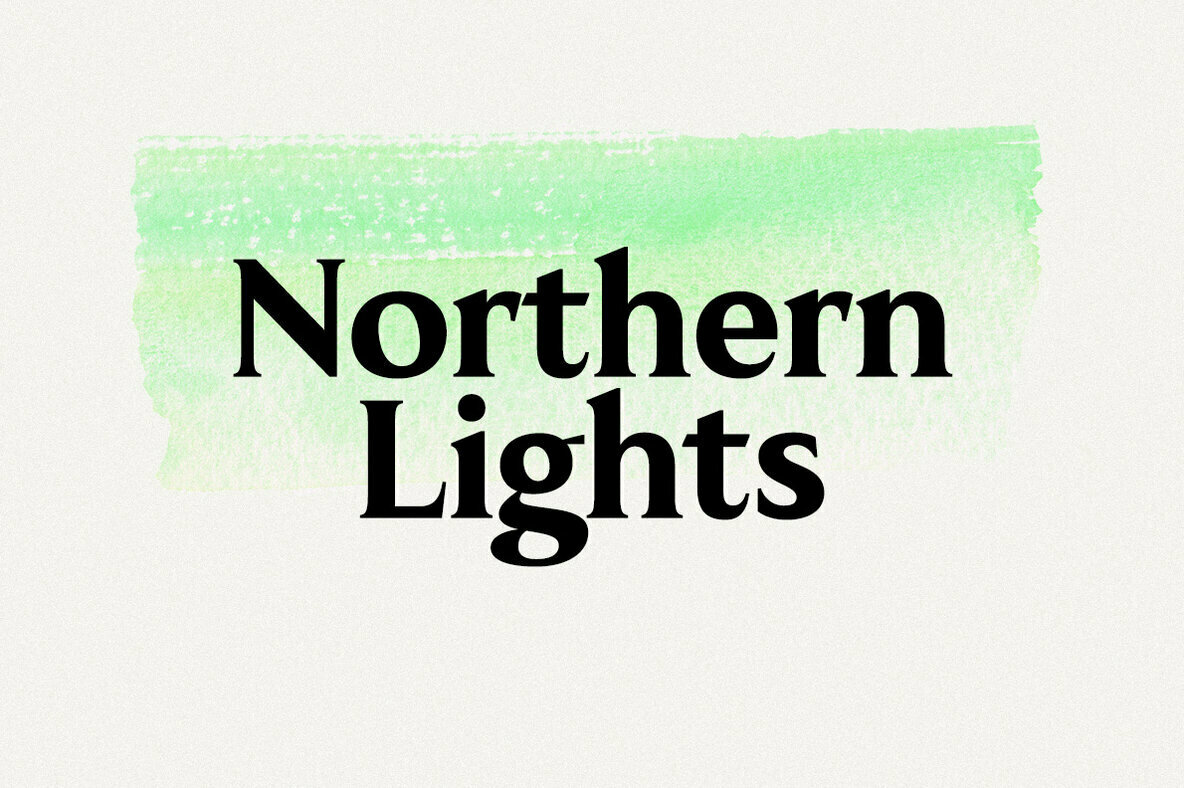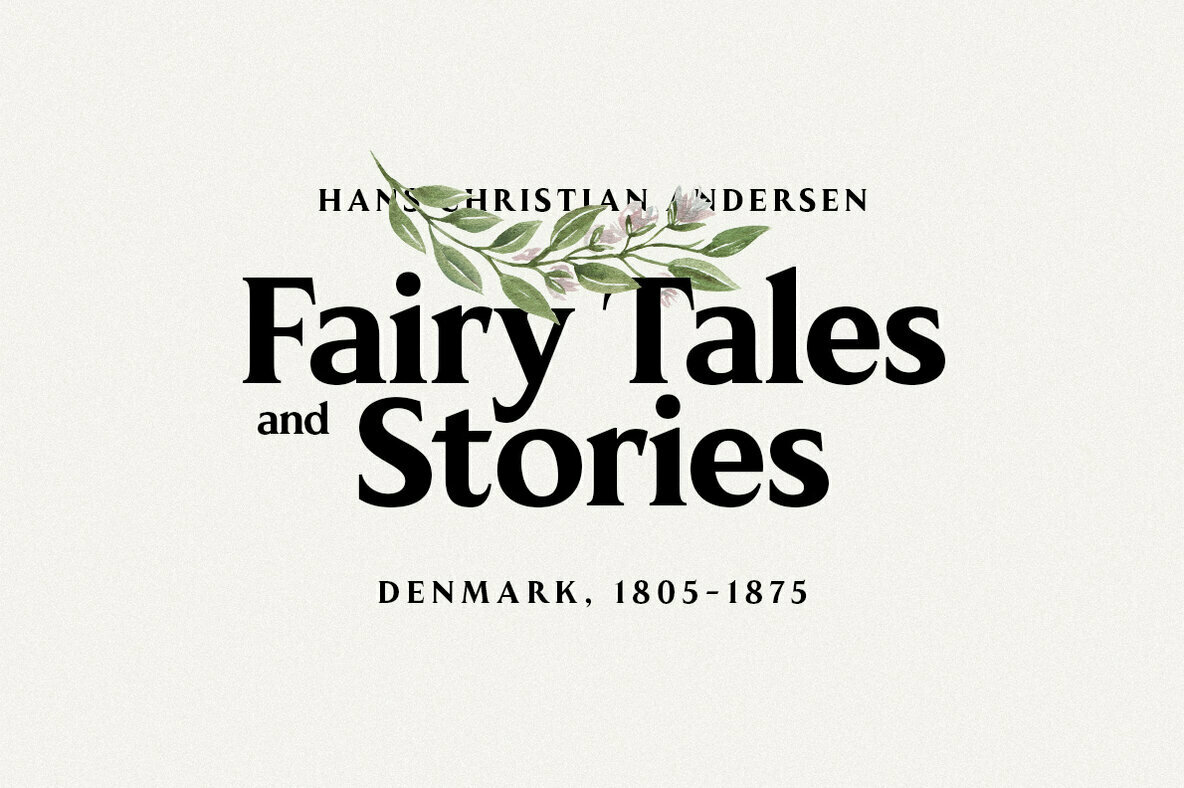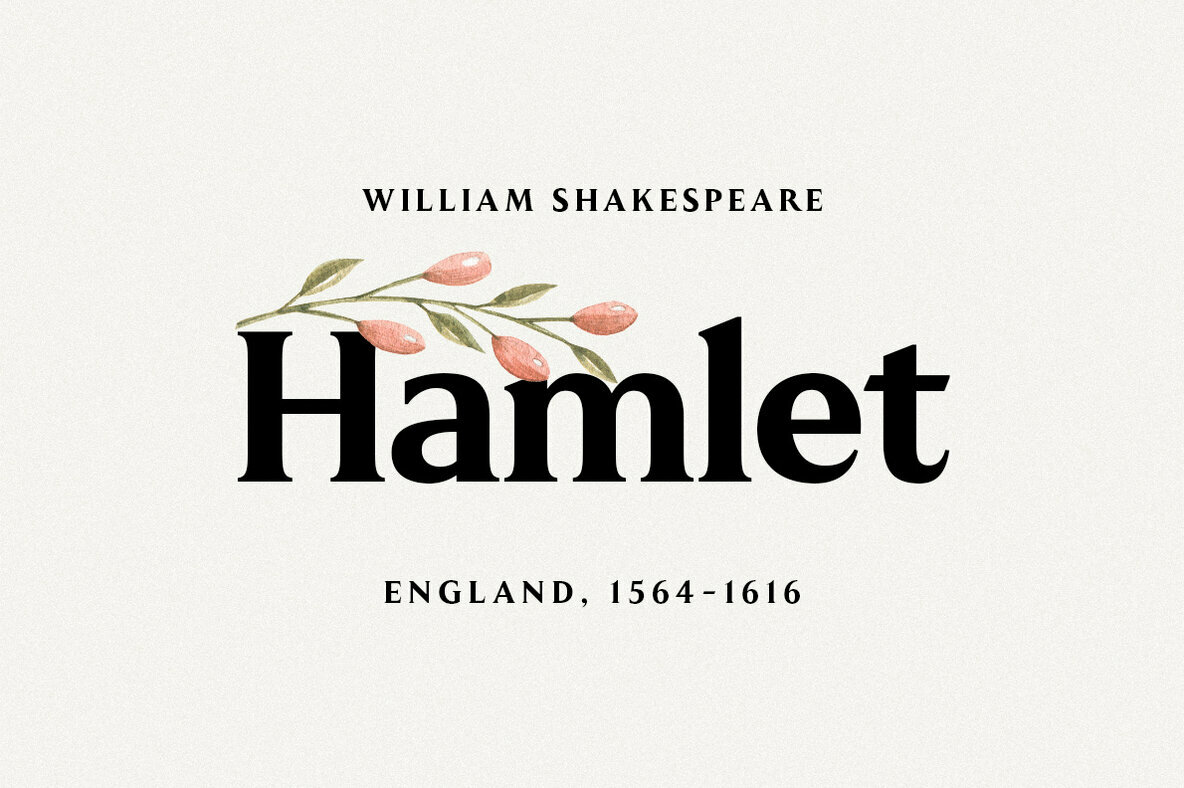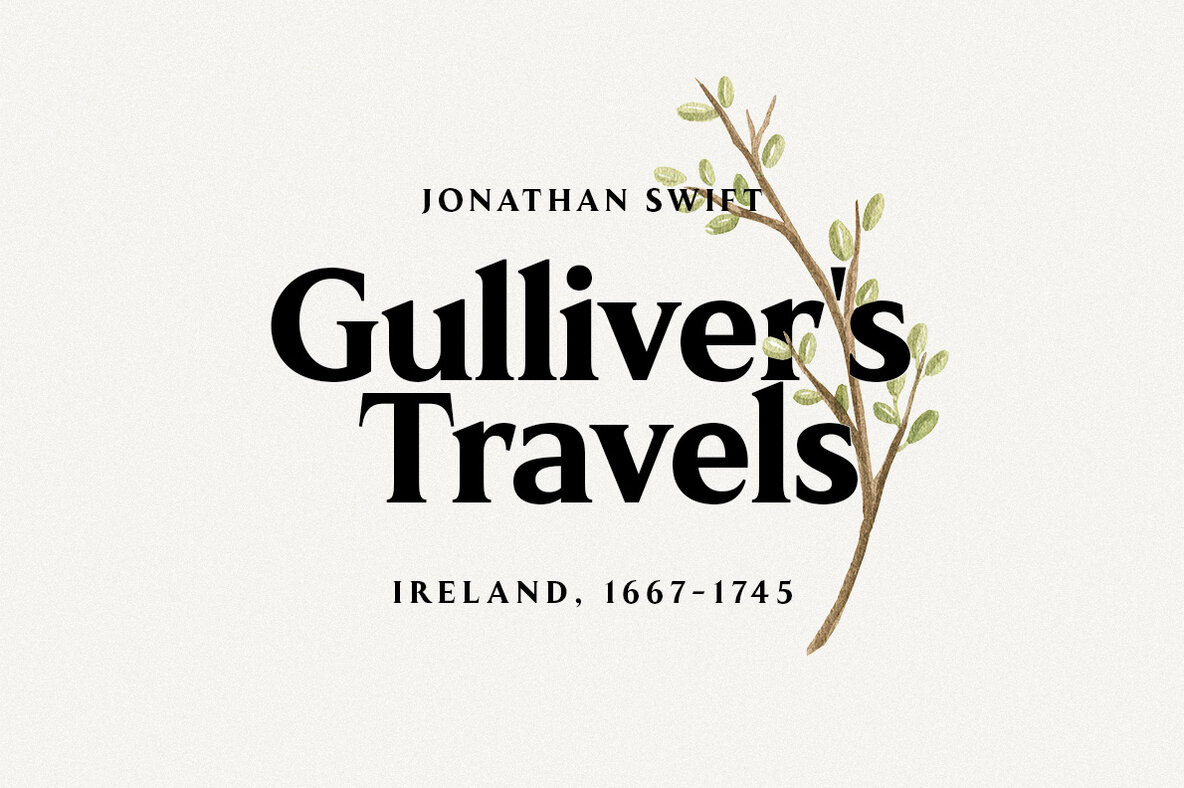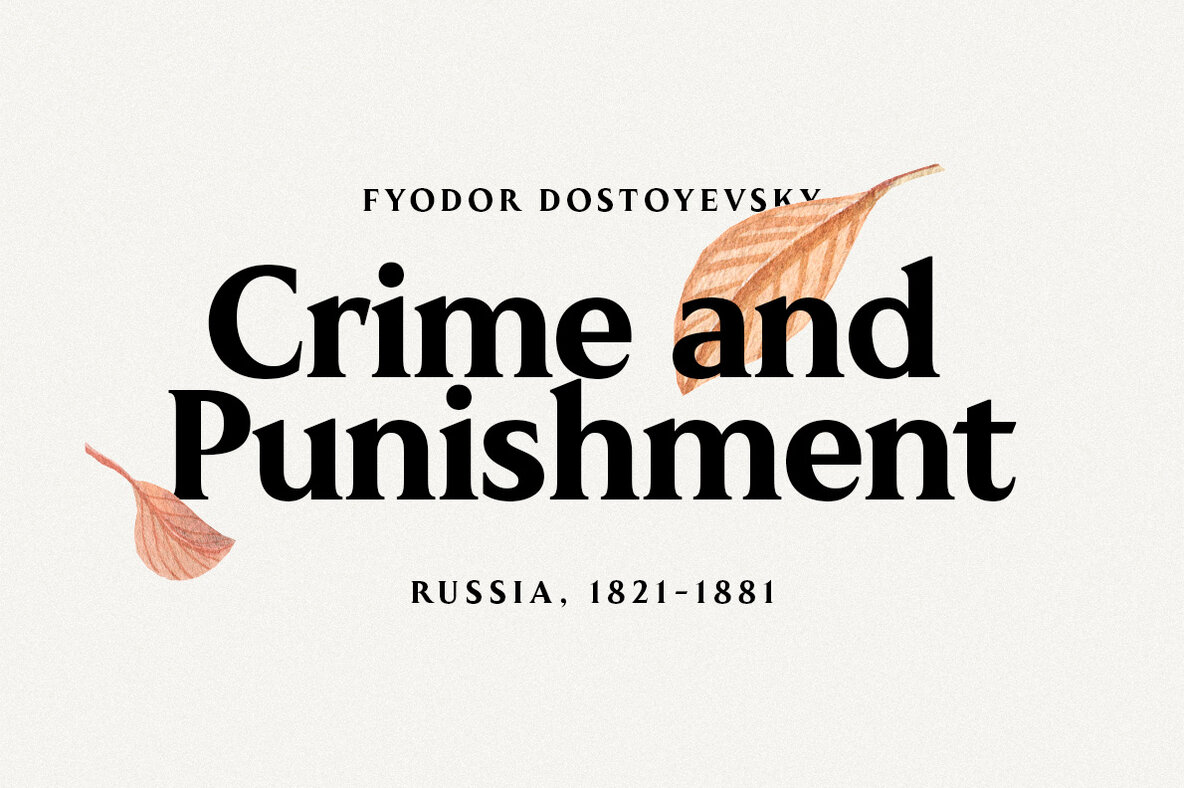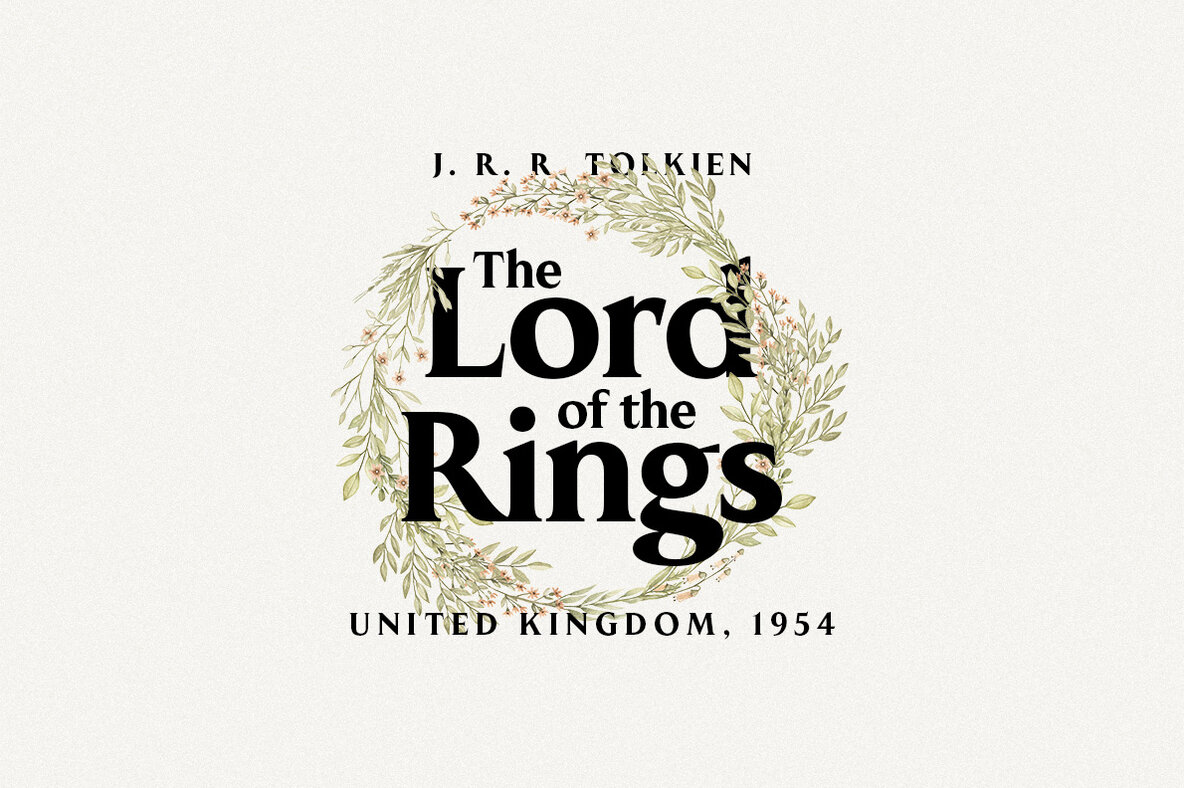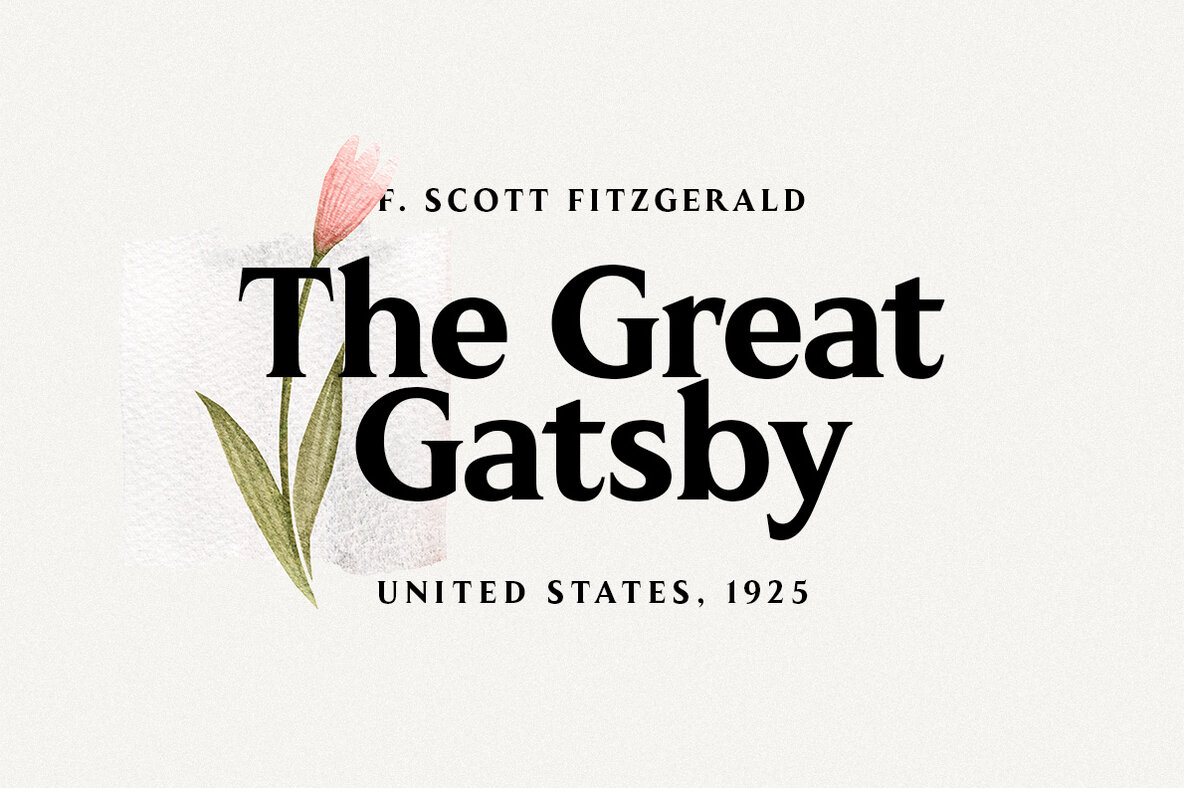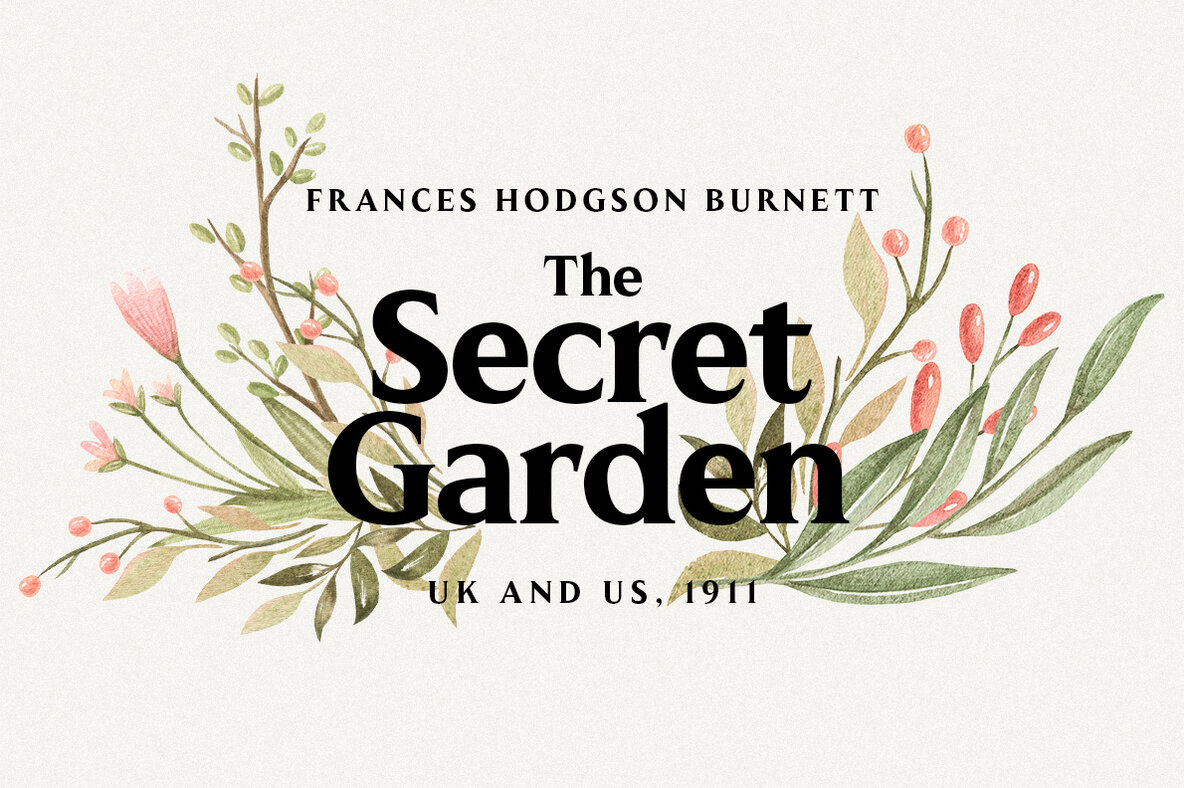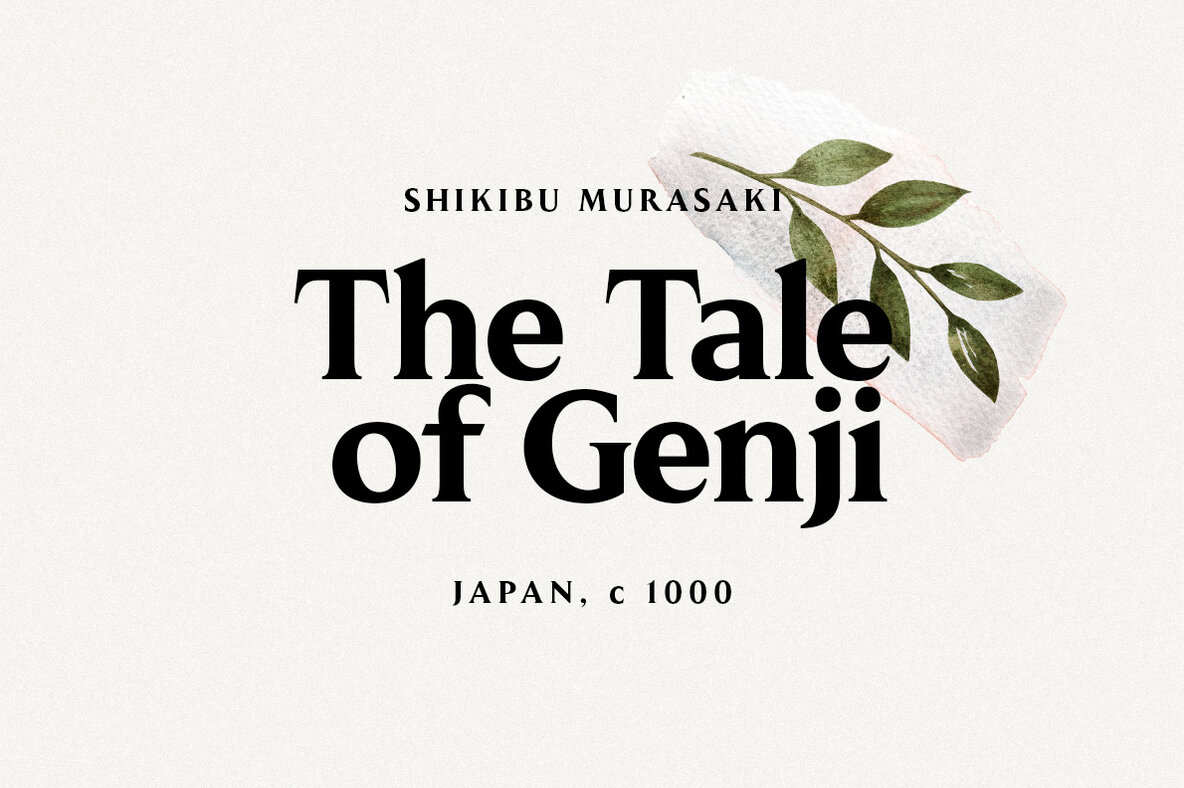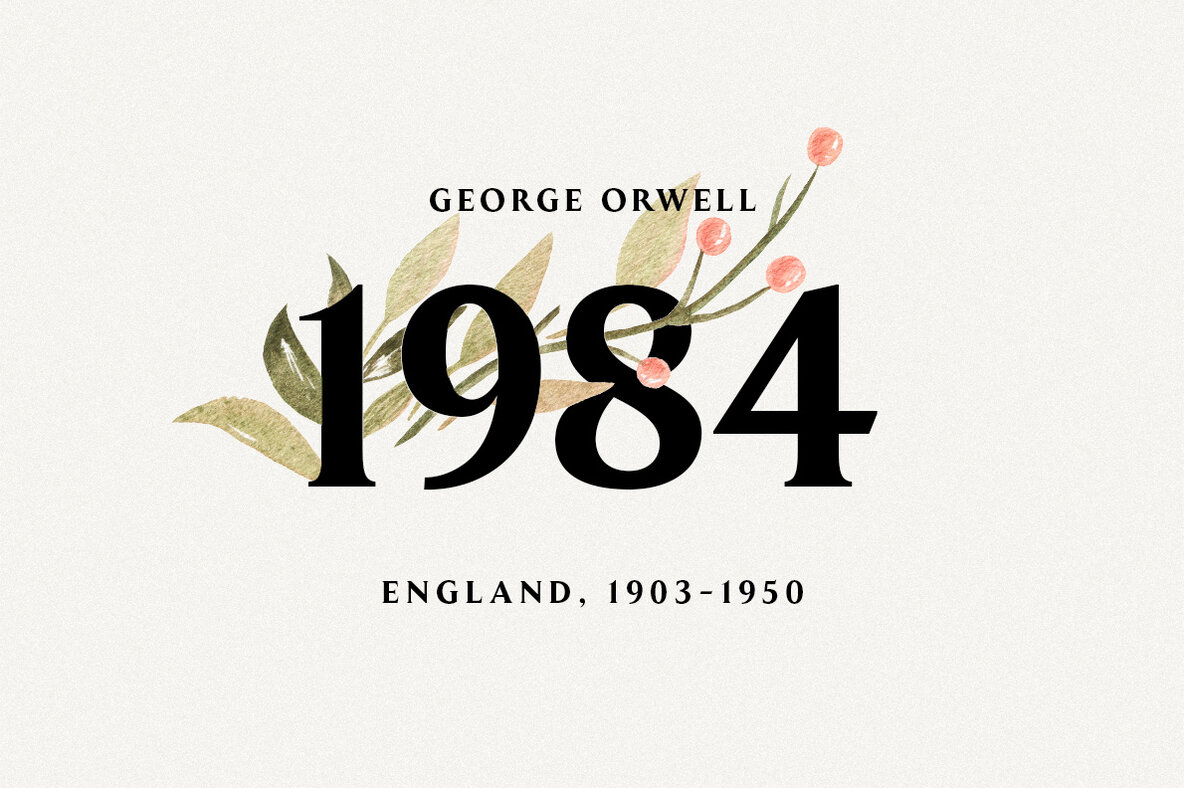
MADE Kenfolg
MADE Kenfolg is a sophisticated display serif font, expertly designed to provide an elegant touch to titling and branding projects. This typeface offers a classic serif style that bridges tradition with a modern sensibility, making it an ideal choice for a broad range of applications. Features:MADE Kenfolg: Refined Serif Typeface for Versatile Applications
MADE Kenfolg stands out with its refined design, perfect for creative professionals seeking to add a touch of elegance and distinction to their projects.
- Changed the font style to a more classic version.
- Changed serifs. "Incised" removed.